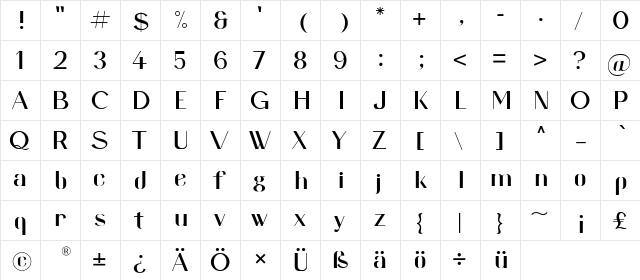
Bainai-DEMO Regular
Design Context for Bainai-DEMO Typeface
Bainai-DEMO offers clean, dependable letterforms without strong stylistic allegiance, making it a practical choice for designers who need flexibility.